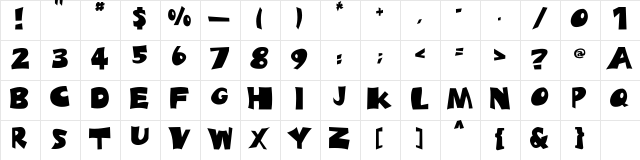
Spotts
Design Context for Spotts Typeface
Spotts is a composed and adaptable typeface that performs quietly and consistently across a wide range of design contexts.